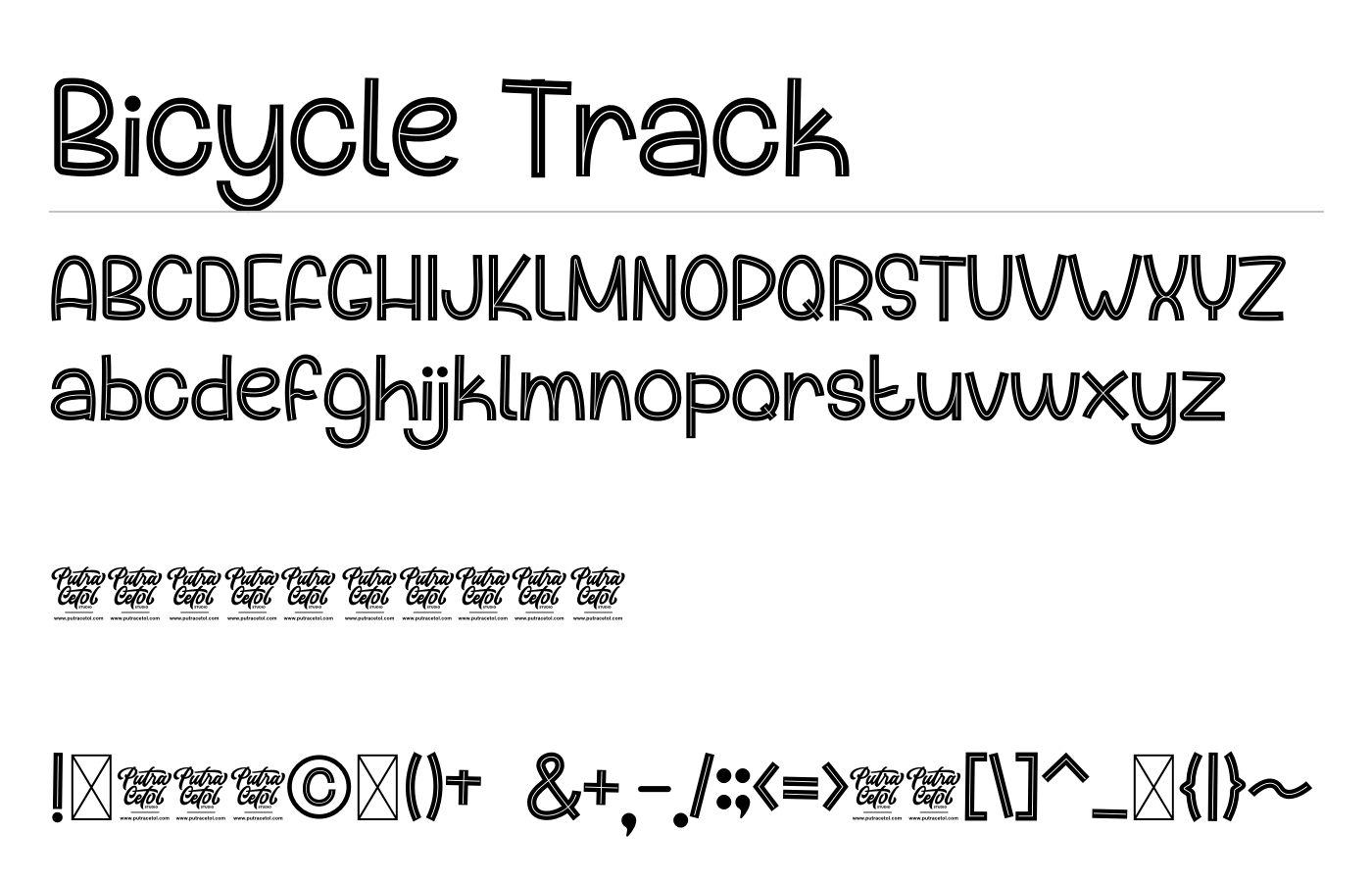
Bicycle Track is a playful, hand-drawn sans serif font with a light weight and tall, narrow letterforms that give it an energetic and casual feel. Its double-line strokes and quirky shapes make it perfect for fun, informal designs like children's books, posters, or branding that seeks a friendly, approachable vibe. This font works well for headlines and display text where personality and charm are key.
Bicycle Track Font
About Bicycle Track Font